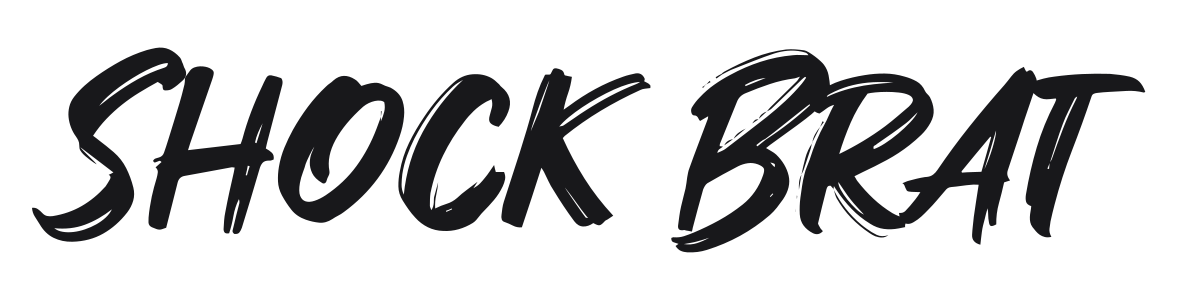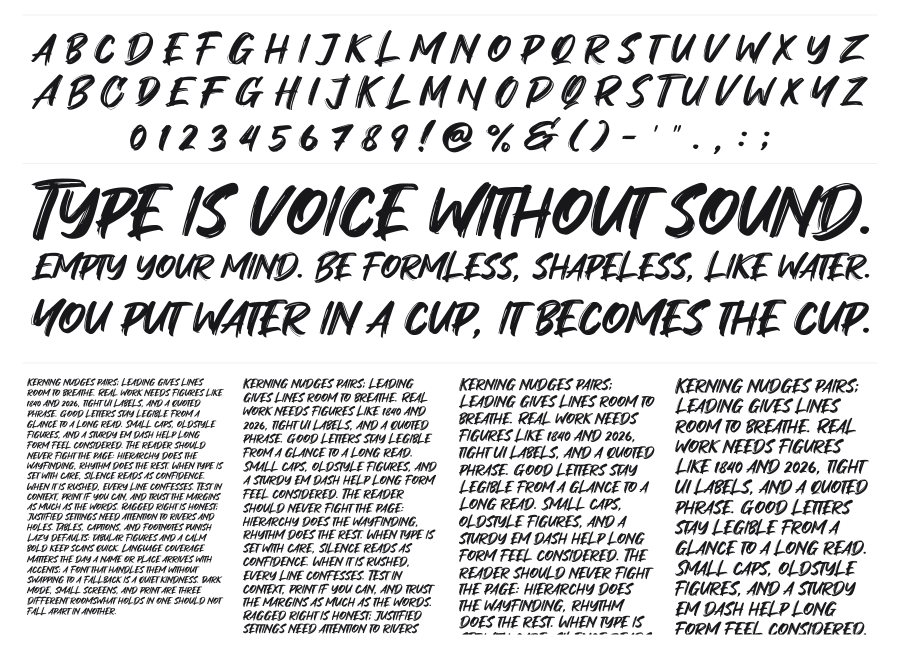
Shock Brat
Shock Brat is a bold brush script loaded with raw, hand-painted energy and visible bristle texture throughout. Heavy downstrokes slash against wispy hairlines, and the aggressive italic lean gives every word a sense of forward momentum. It reads loud at large sizes, which is exactly the point.